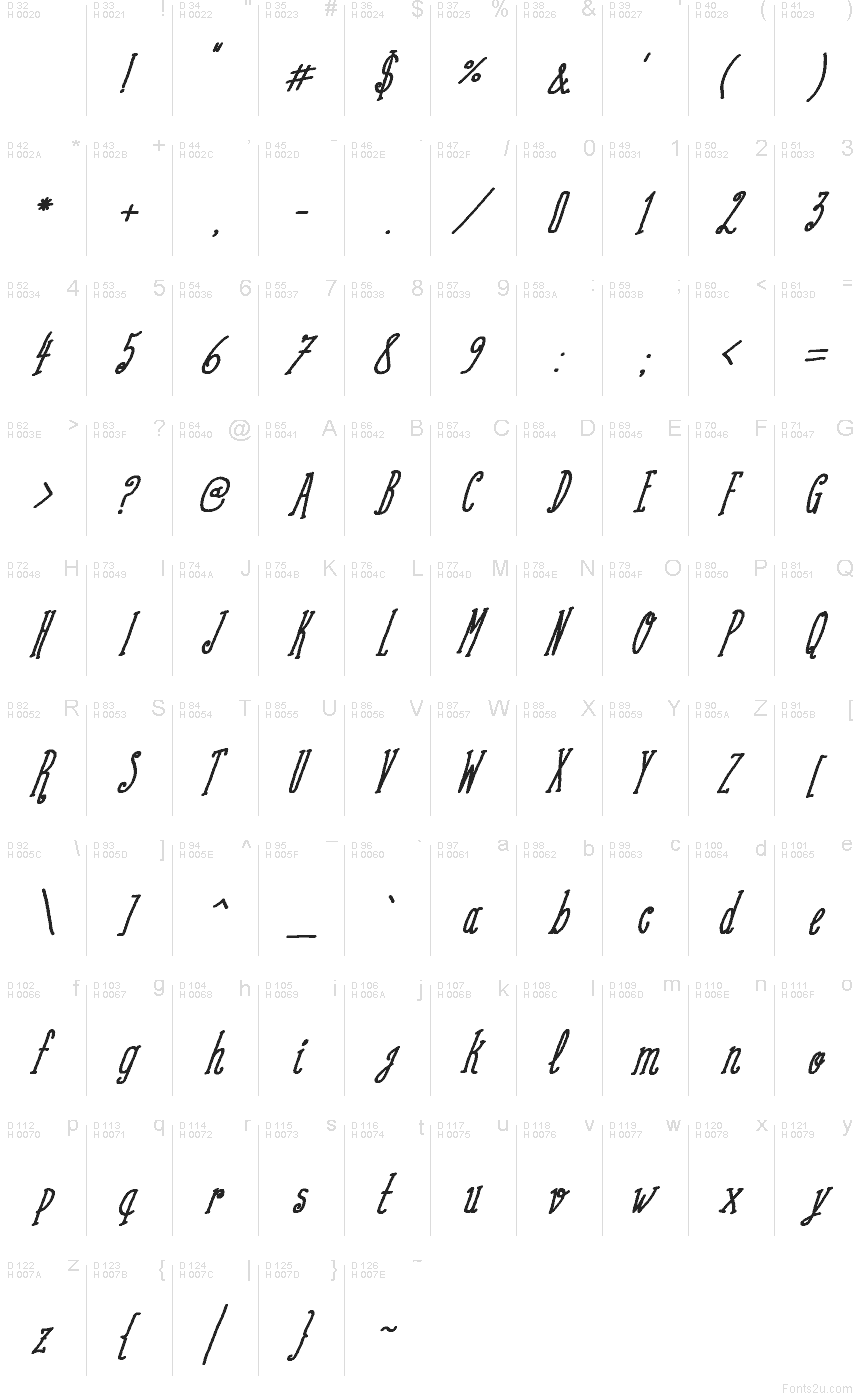
Coffee Written Bold Italic
Coffee Written Bold Italic by Galdino Otten is a free handwritten font shaped by a quick, springy rhythm and tall looped strokes that keep the lettering in motion. The repeated curl at the tops and the slightly uneven sweep make it feel like a confident marker note rather than a polished script.
That pace gives short text a natural role on cafe menus, takeaway cup labels, coffee packaging, window decals, and social media promos. It also makes sense for recipe cards or casual branding where the looping forms can echo a personal signature without becoming formal or ornate.